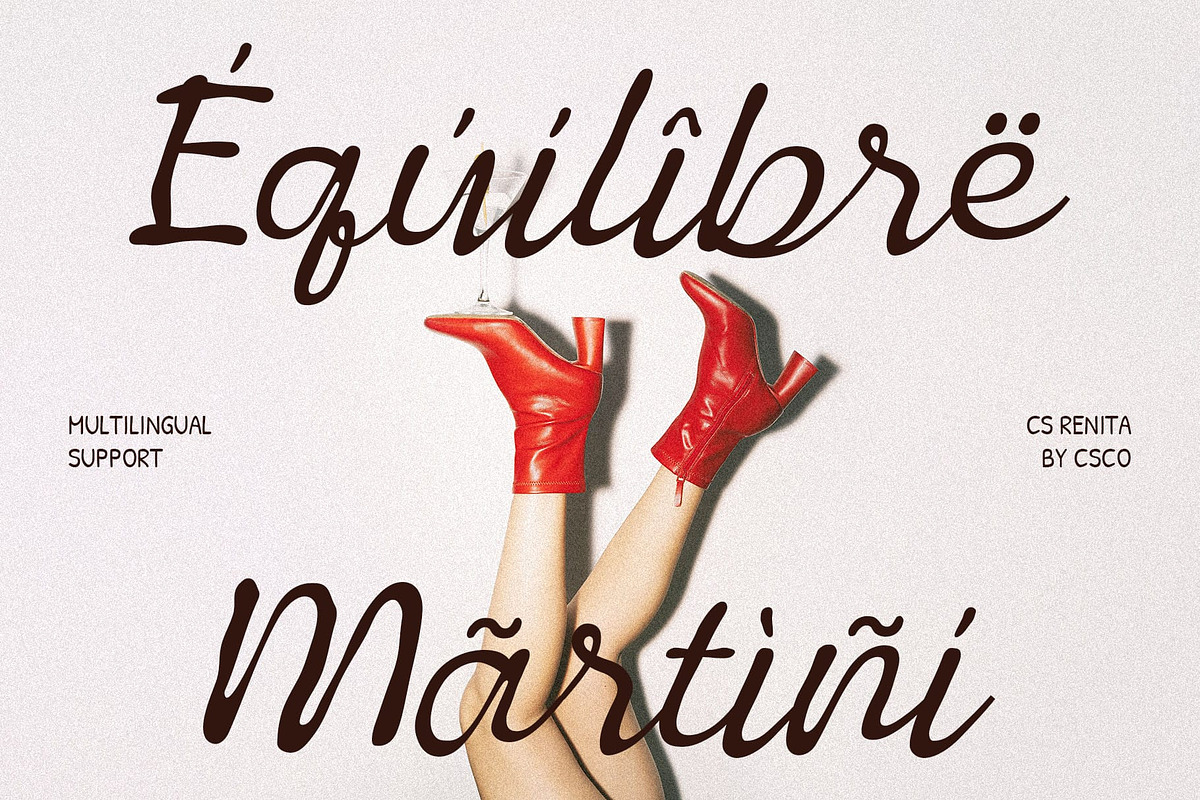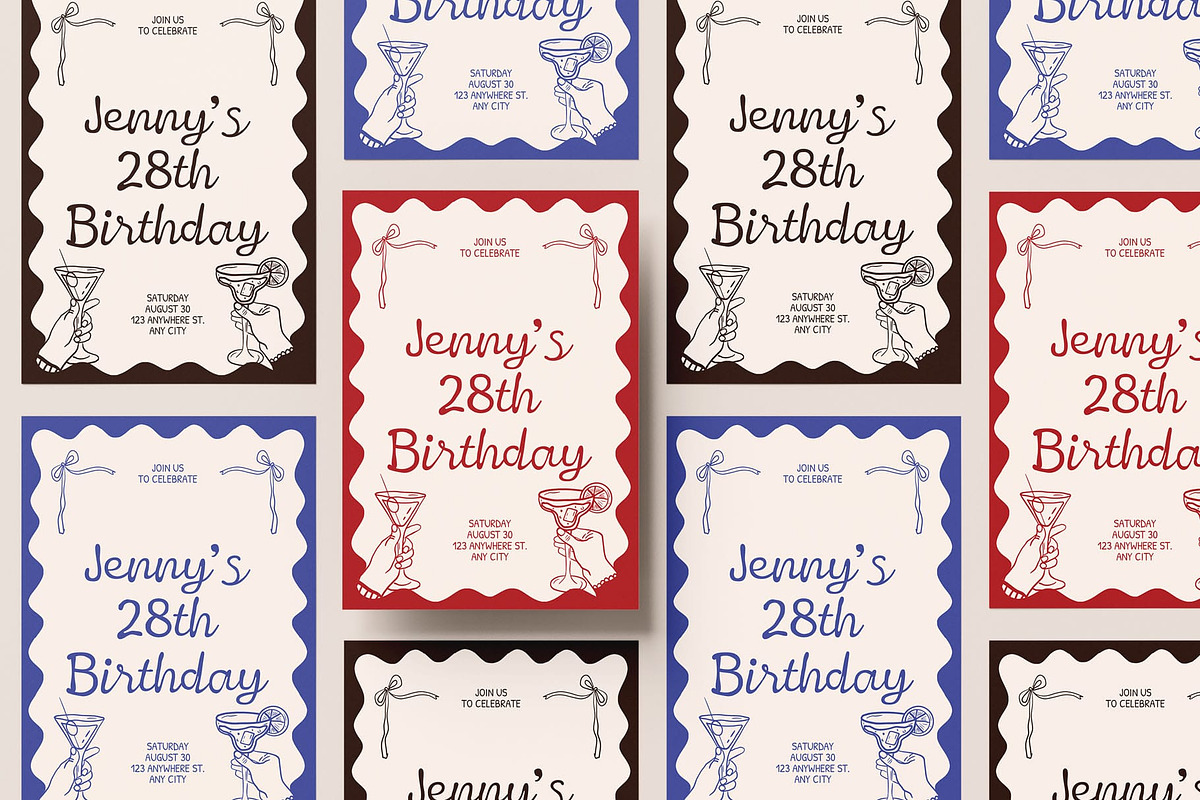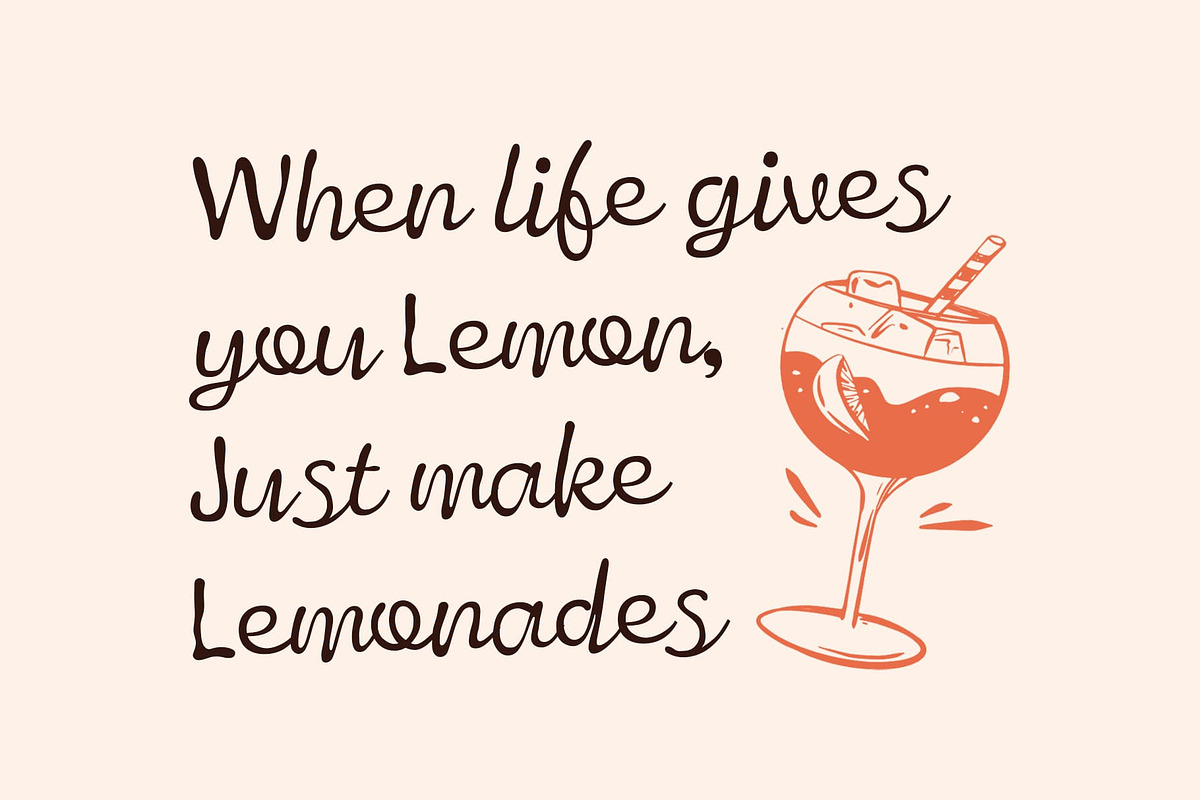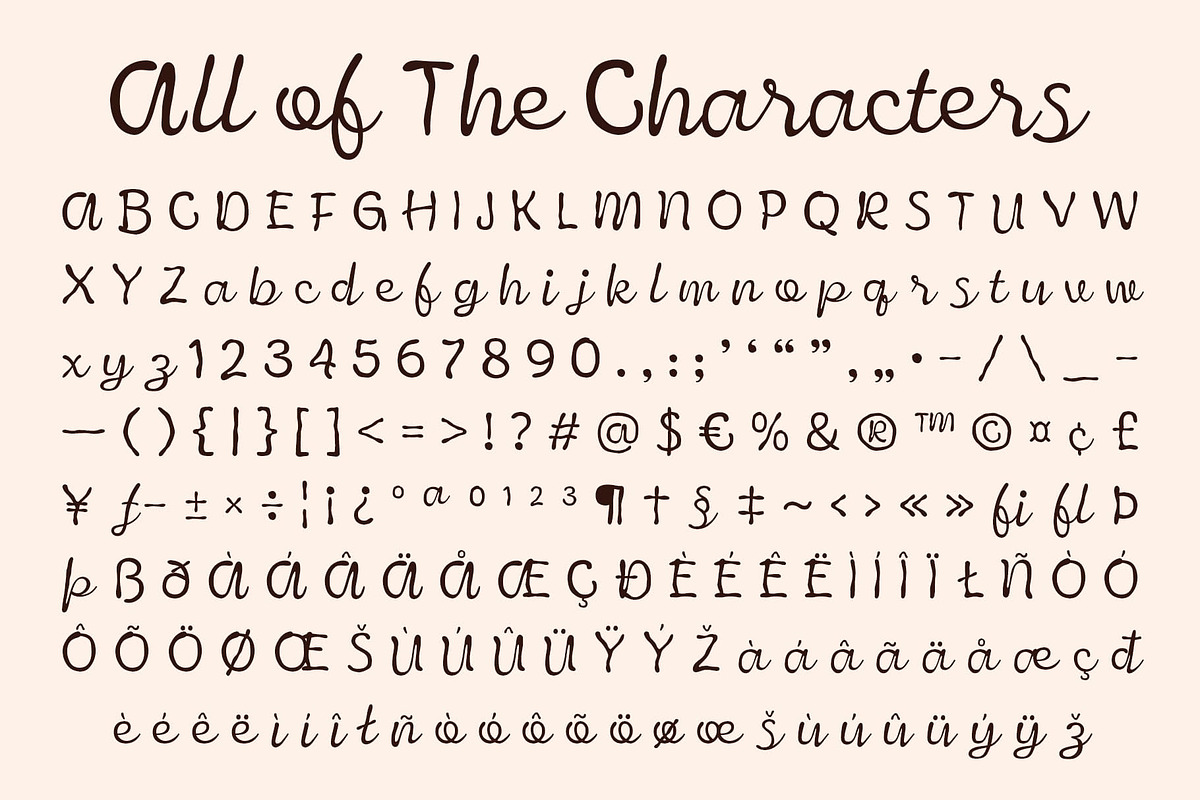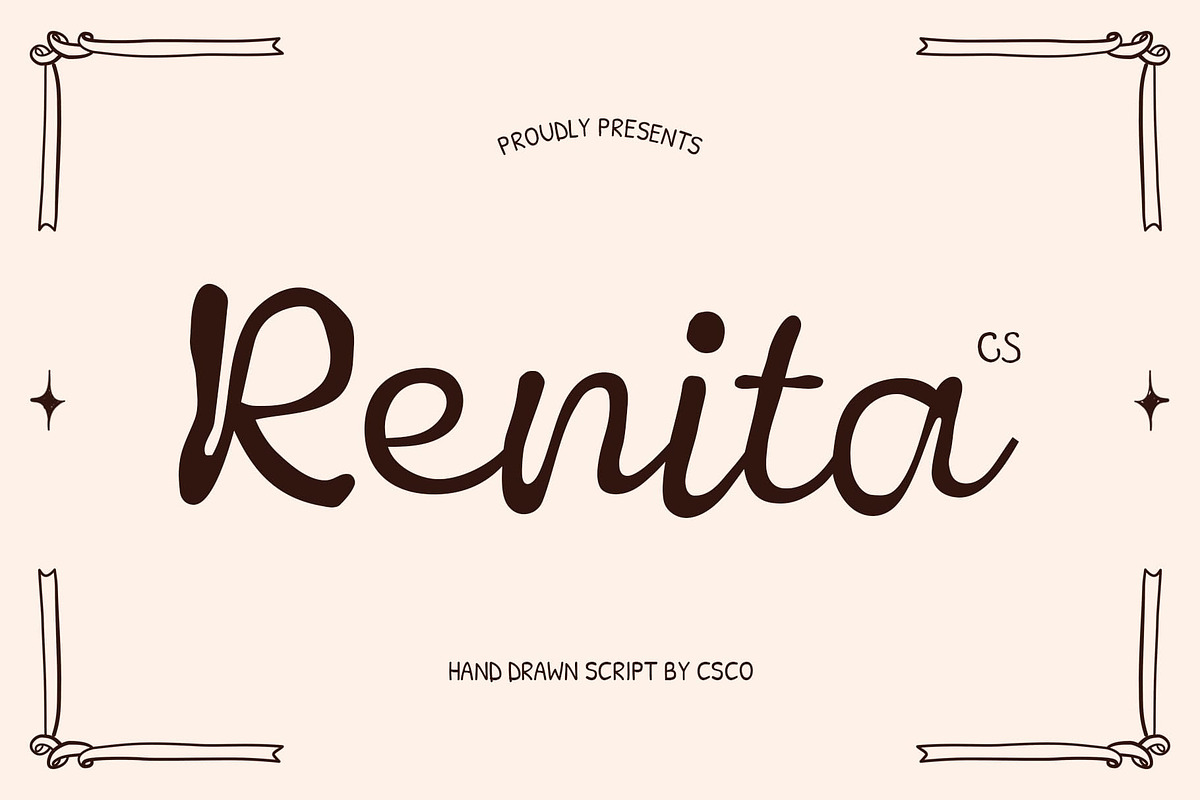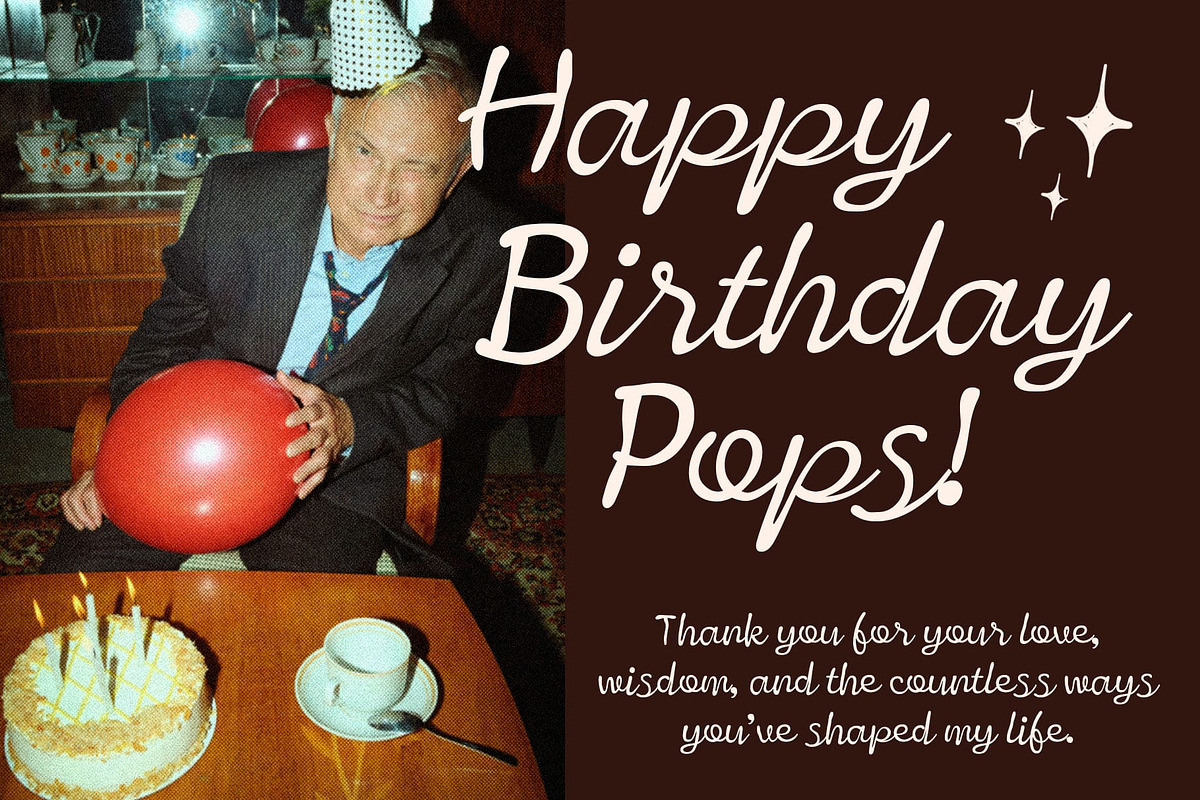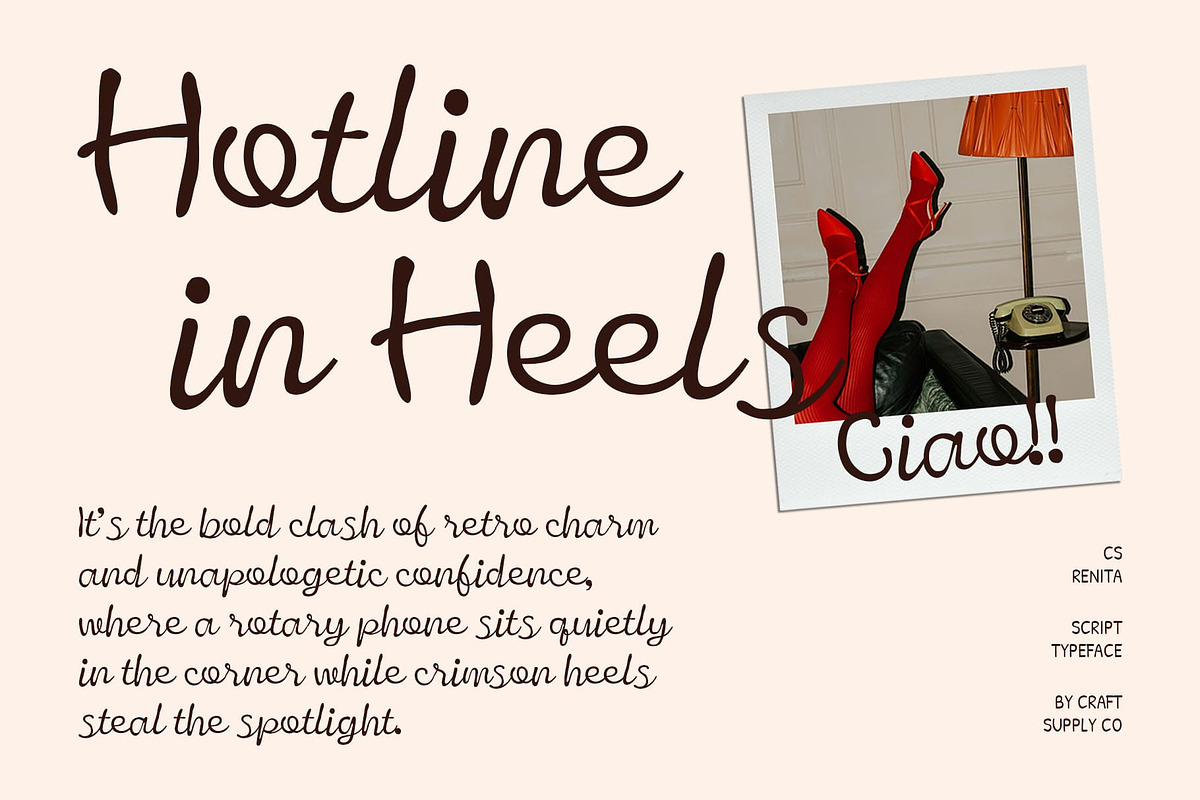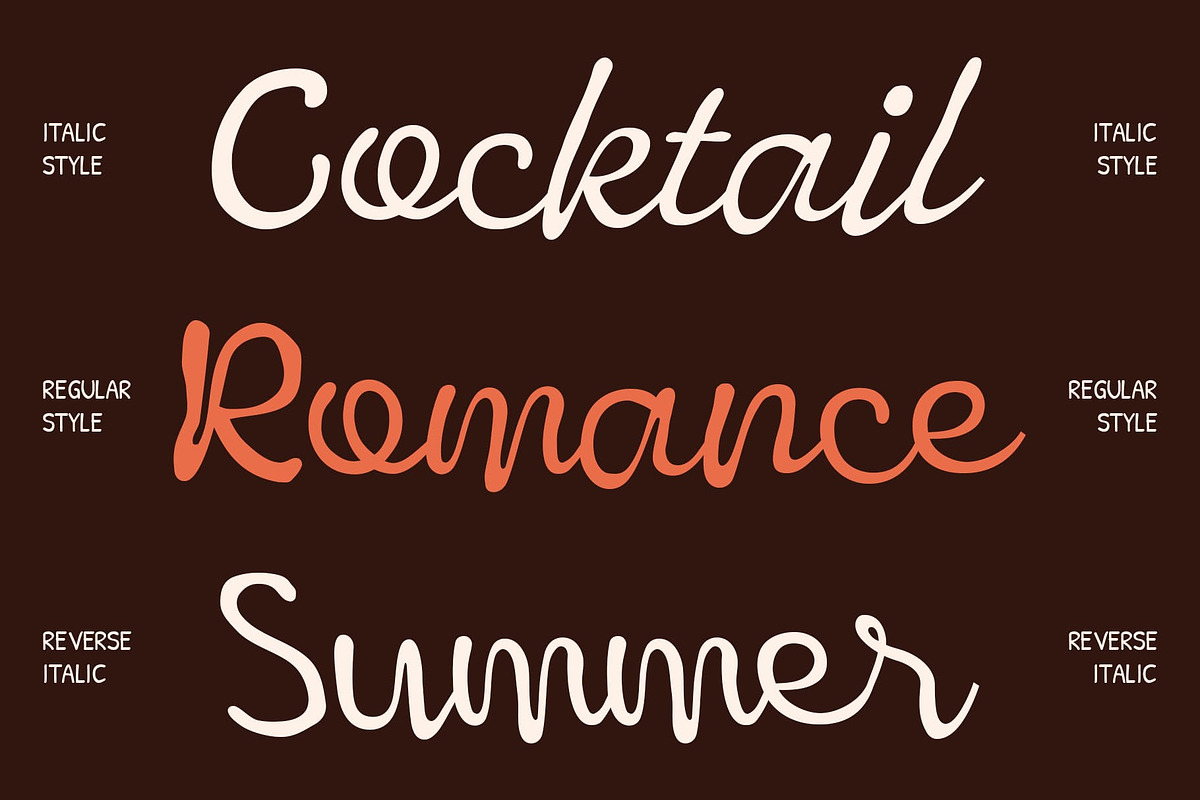
CS Renita – Handwritten Script Font
CS Renita – Script Font with Graceful Elegance
Flowing Script Font with Handwritten Charm
Graceful and Sophisticated Design CS Renita is a script font that embodies elegance through its flowing strokes and graceful curves. Inspired by the beauty of natural handwriting, it adds a personal yet refined touch to any project. Its fluid form creates a sense of movement and sophistication, making it perfect for designs that require charm and style.
Handwritten Curves with Luxury Appeal Each letter in CS Renita carries characteristic curves that mimic authentic penmanship. The smooth, connected lines evoke artistry and refinement, giving your typography a luxurious appearance. This handwritten quality ensures your designs feel warm, personal, and sophisticated at the same time.
Perfect for Weddings and Fashion Branding From wedding invitations and event stationery to fashion branding and luxury editorials, CS Renita delivers timeless beauty. Its stylish strokes elevate formal designs, while its expressive curves add emotion and personality. Whether used for logos, packaging, or elegant headlines, this font makes a memorable impression.
Versatile Script for Creative Expression CS Renita adapts to a wide range of applications where elegance is key. Use it to highlight names, titles, or special messages in projects that demand refinement. Its versatility allows it to transition seamlessly from classic to contemporary settings, ensuring your typography radiates grace and sophistication in every context.
- CS Renita Regular
- CS Renita Italic
- CS Renita Reverse Italic